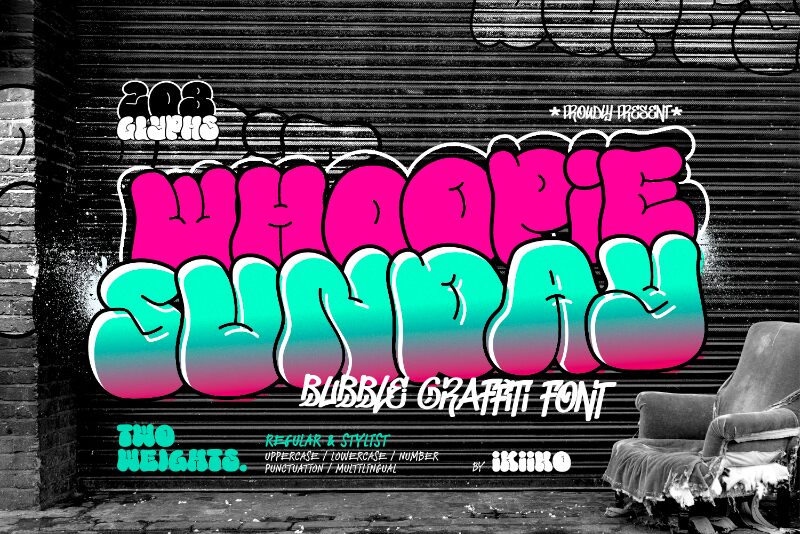
Whoopie Sunday DEMO
Whoopie Sunday font by Ikiiko Type is a graffiti-inspired typeface featuring bold character presence. Its rounded and bubbly appearance hints at a retro inspiration but maintains its modern, youthful vibe with a whimsical essence suitable for fun and casual themes. Bring along a playful look to your printed or digital platform with this free font.